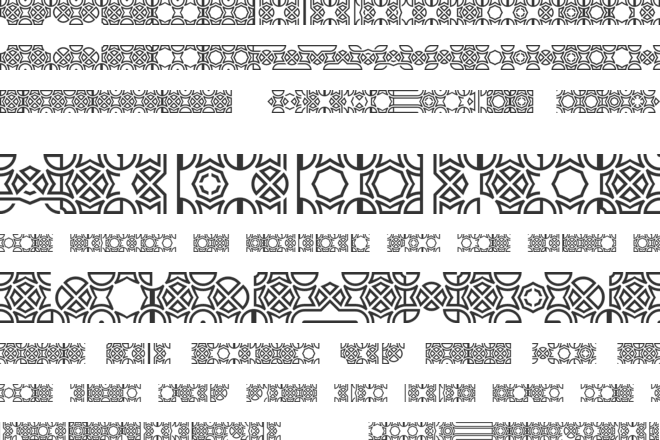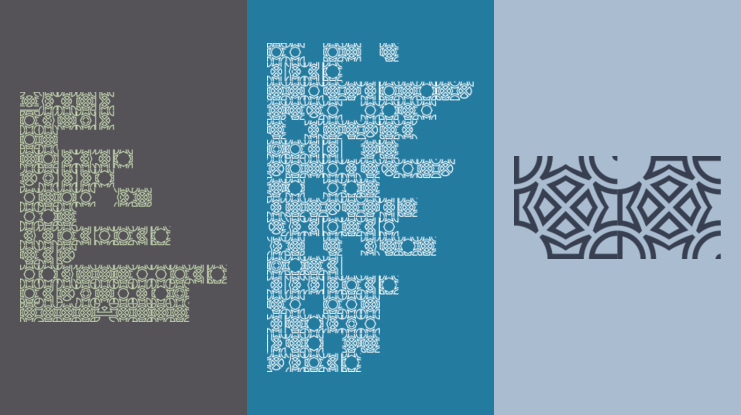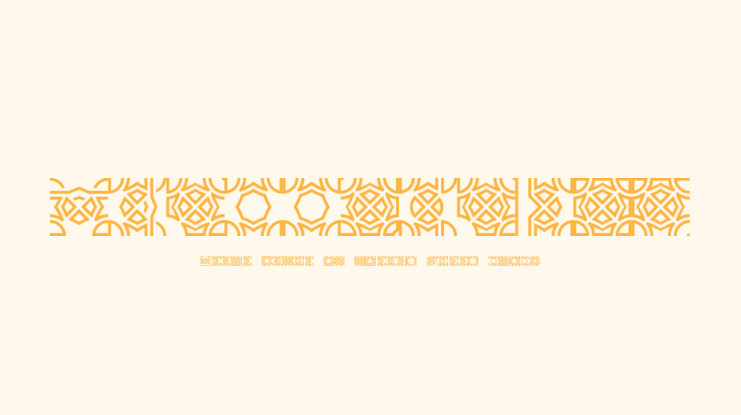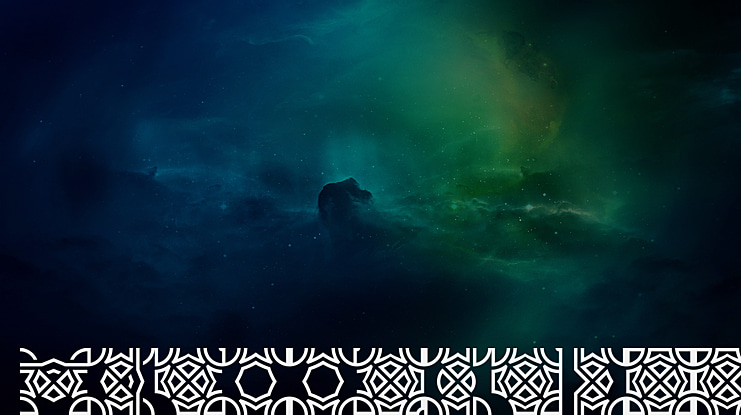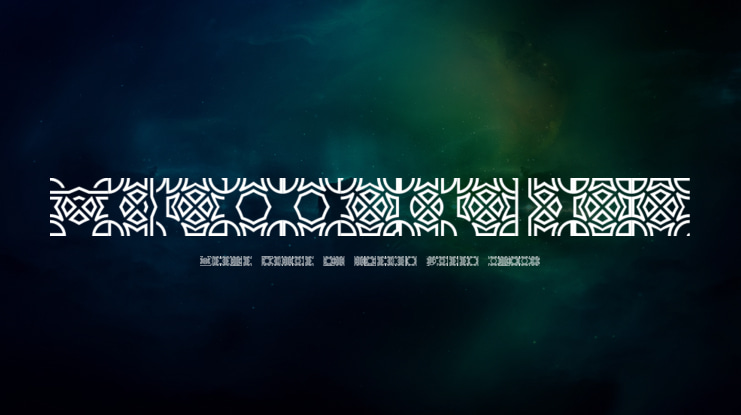
Opattfram01 Font
Set of Elements for creating Frames and Patterns. Full set of Elements, Examples of use and Tips You find in enclosed PDF. Correct work depend of Software settings like: Linespacing, Textalignment etc.